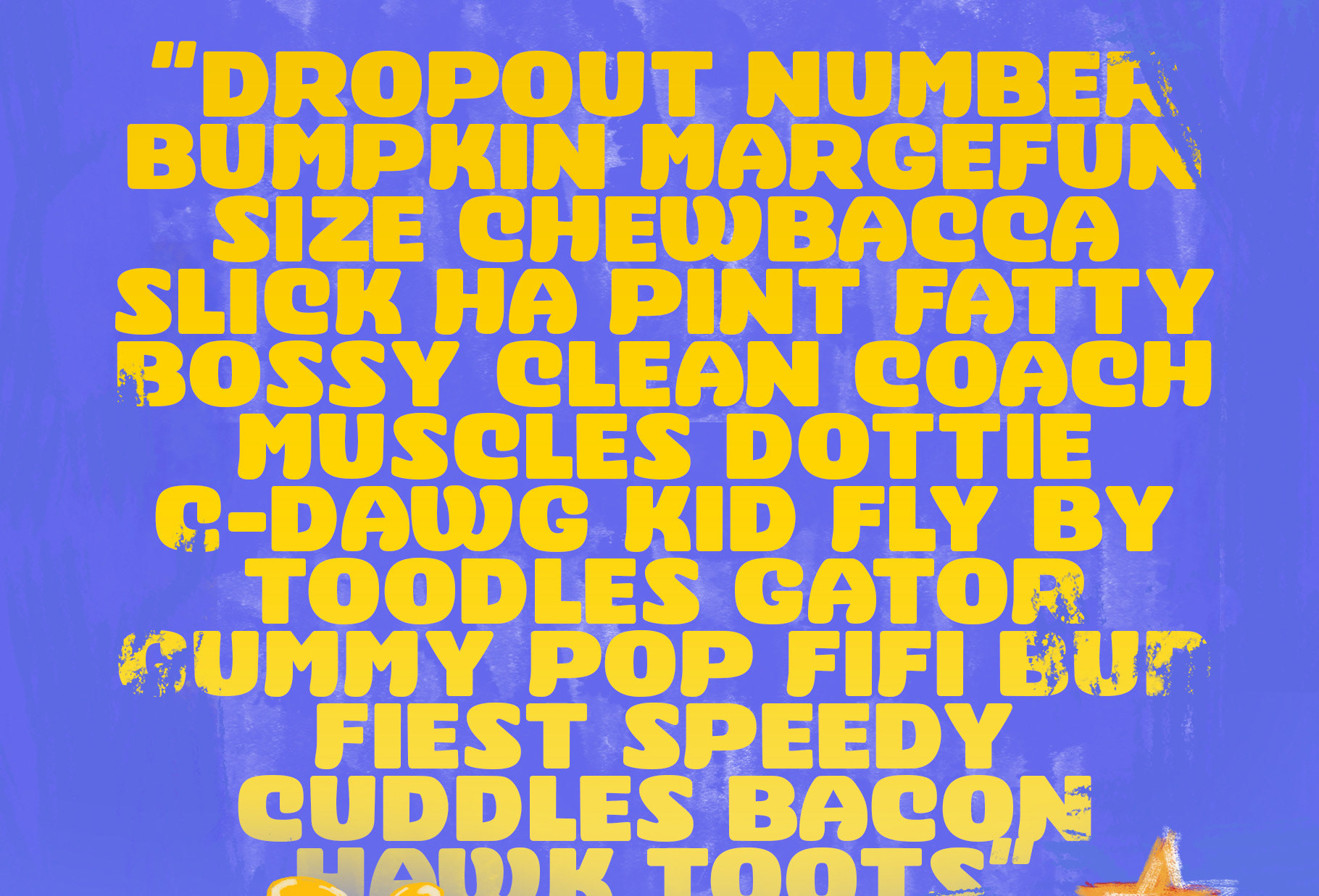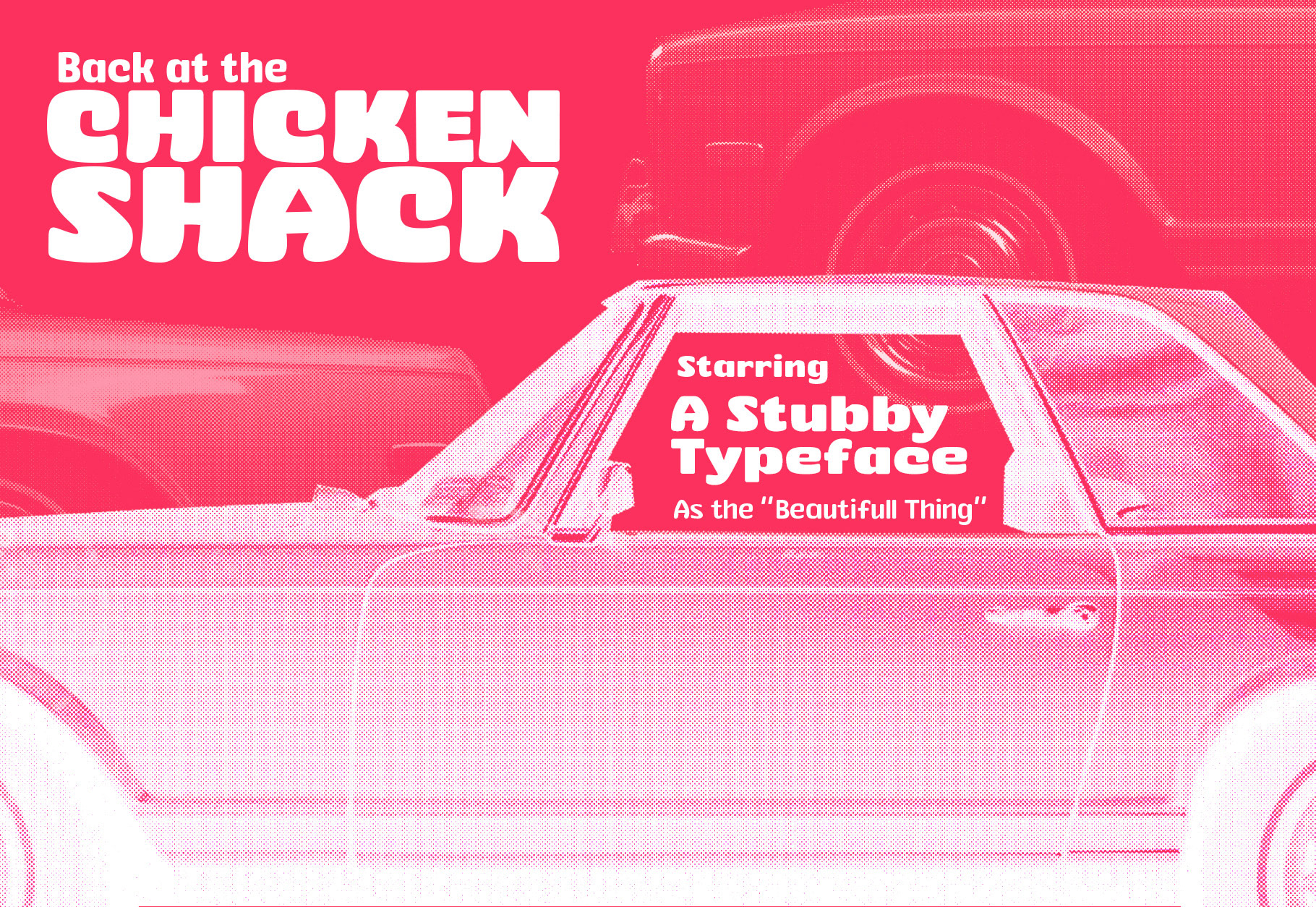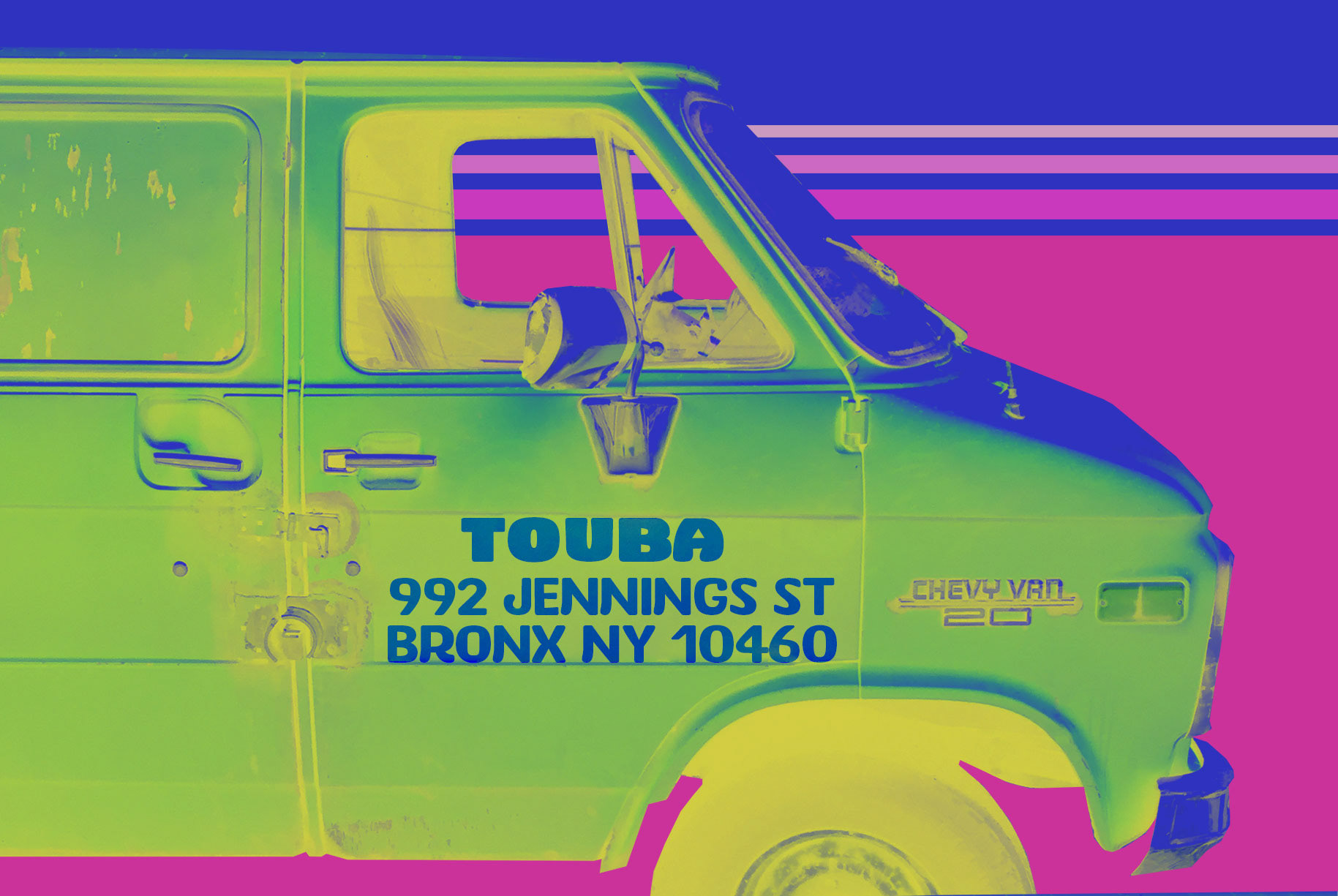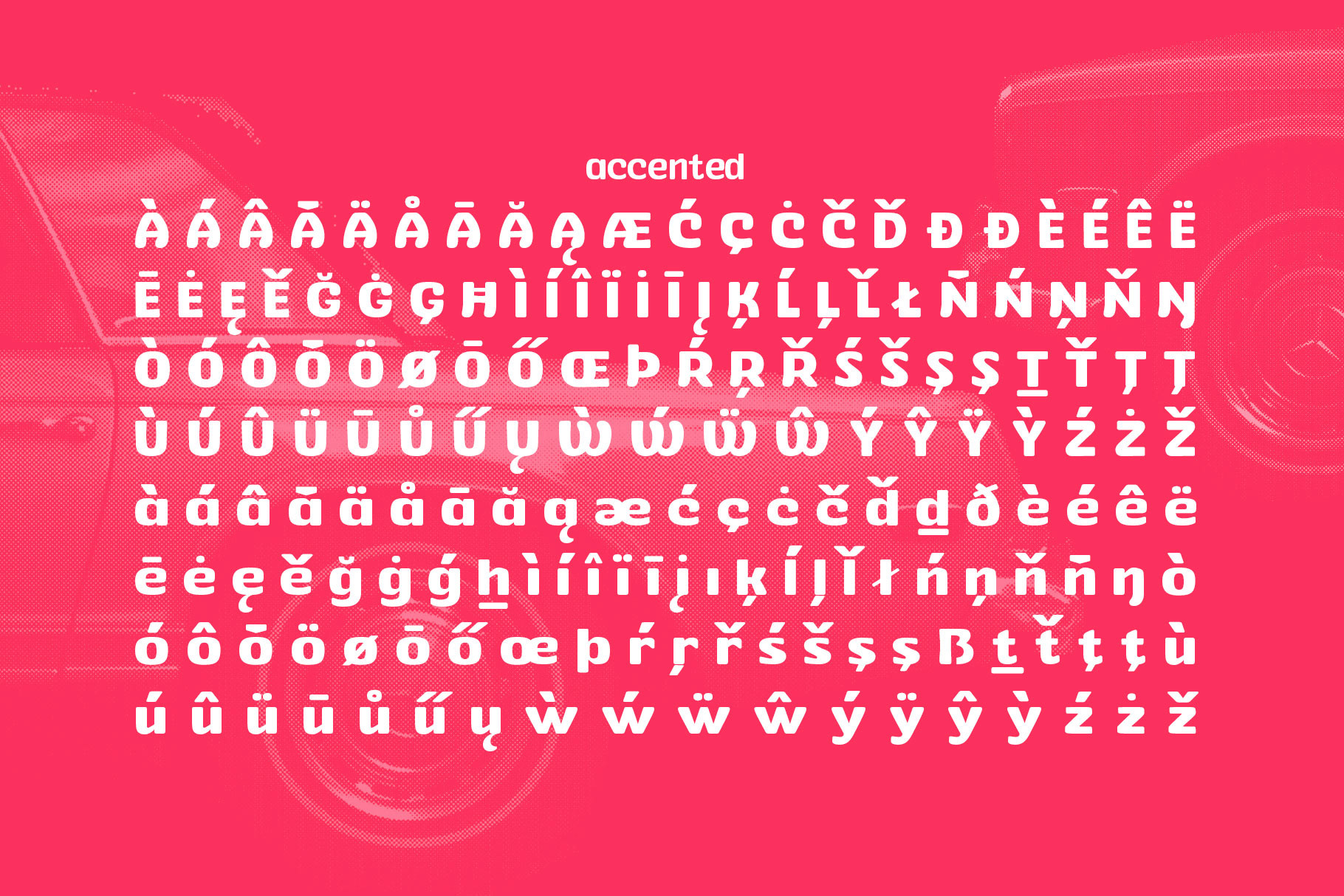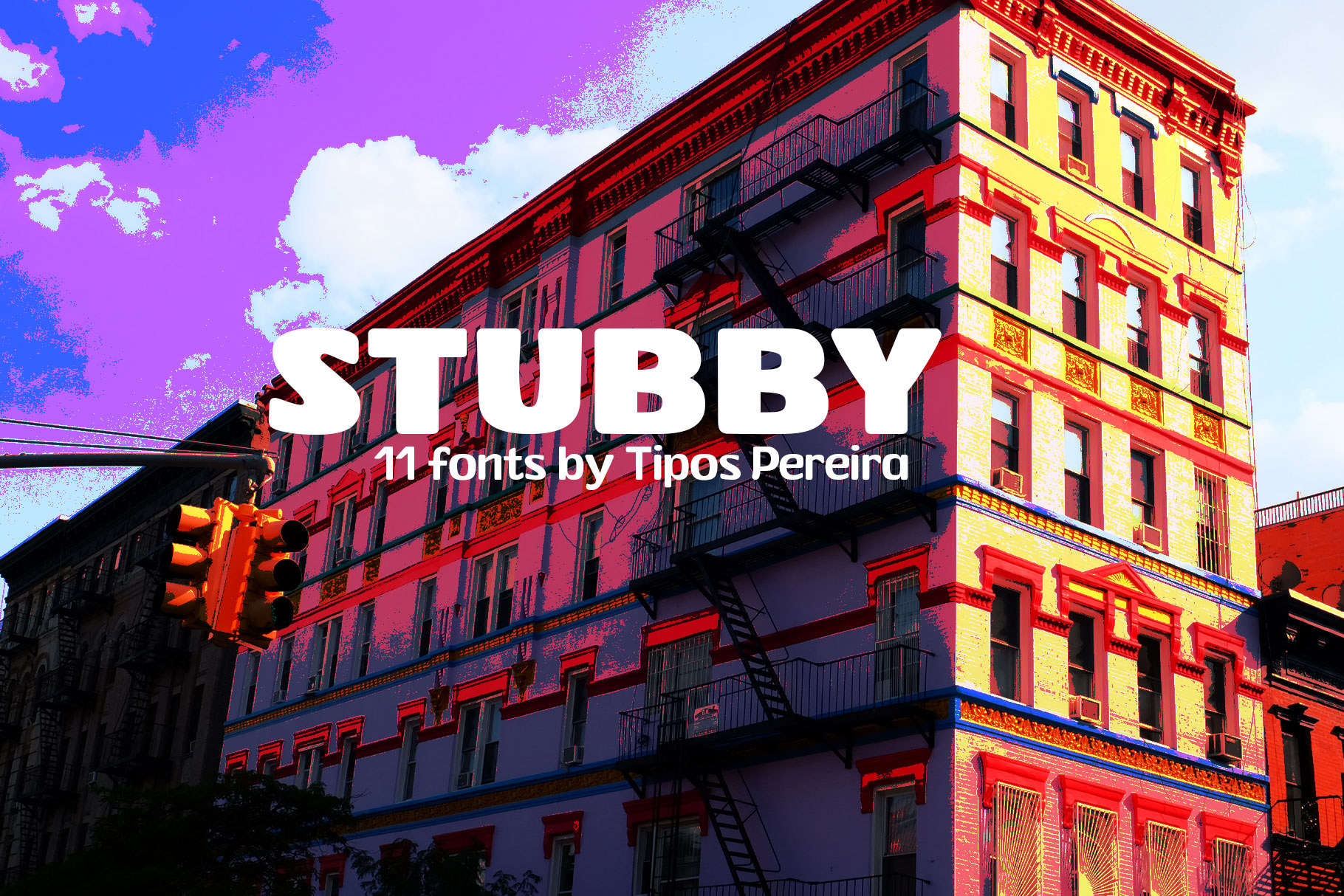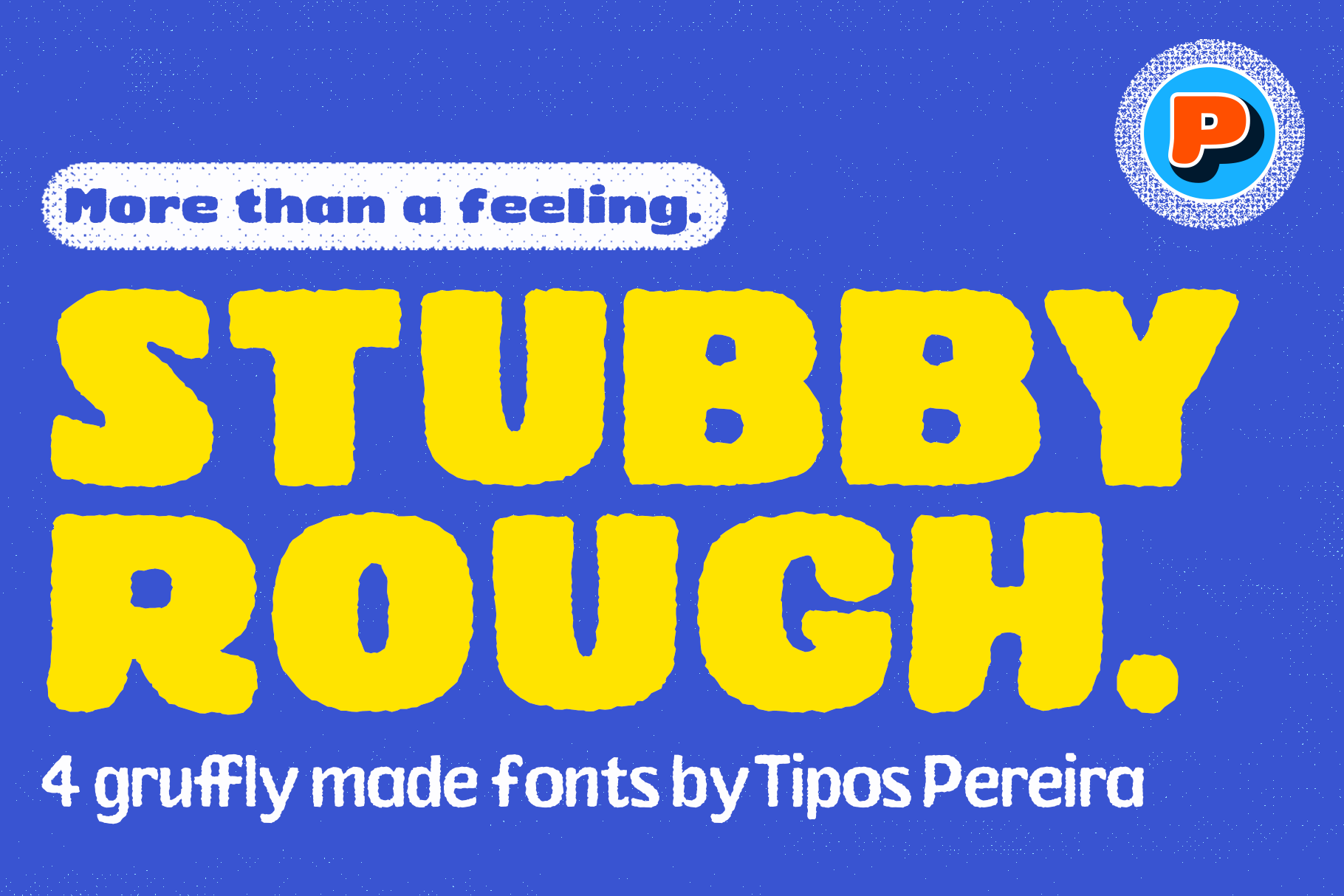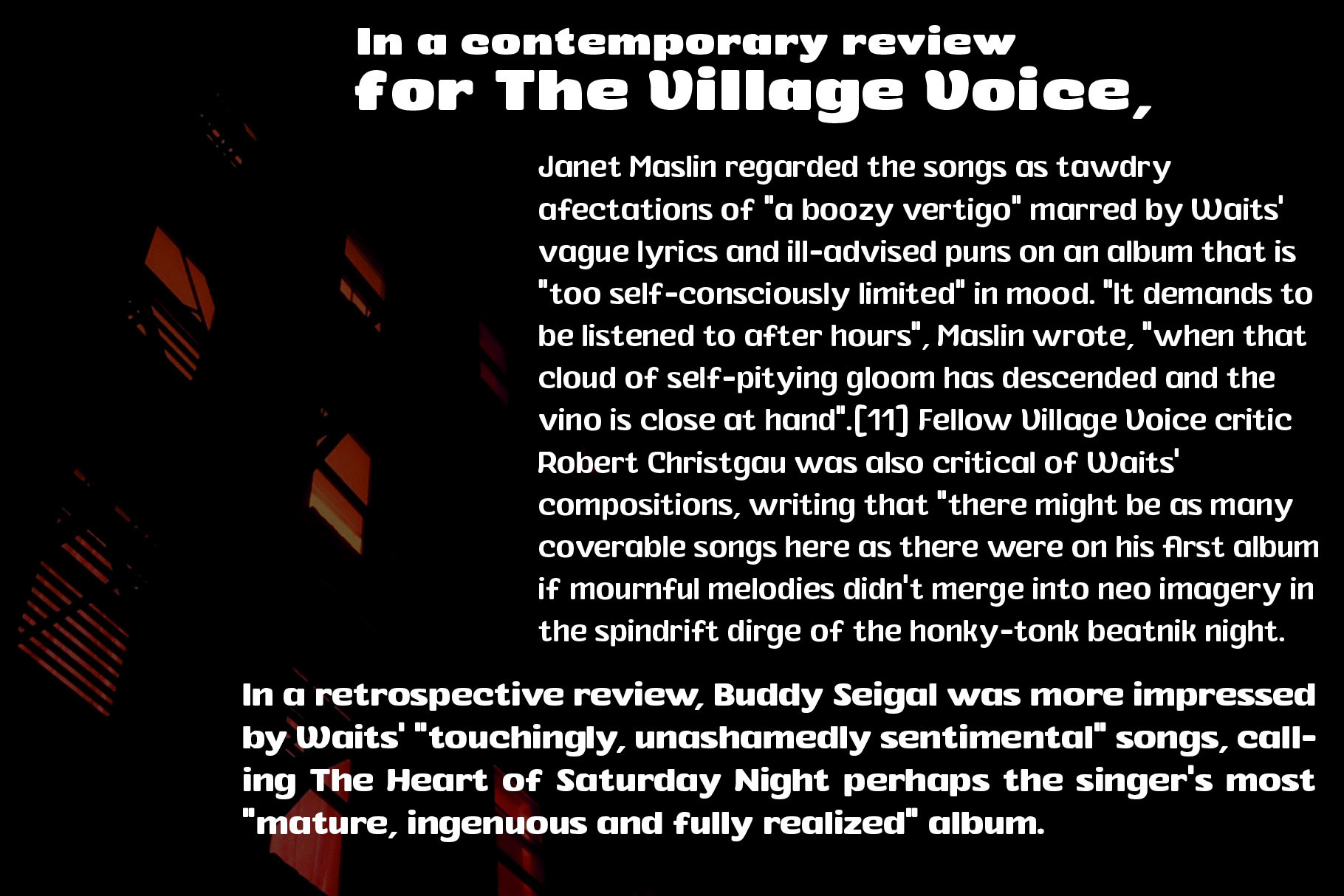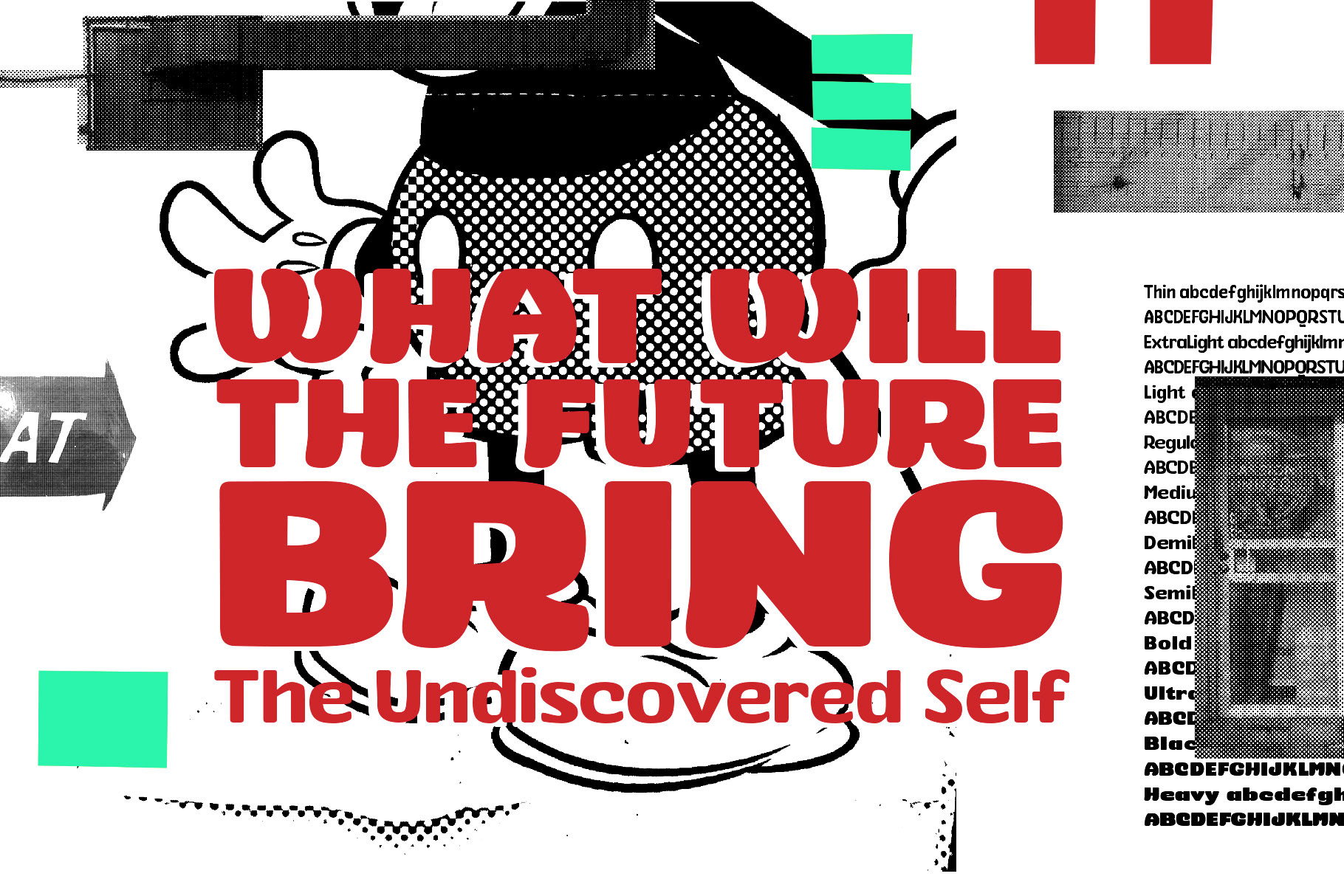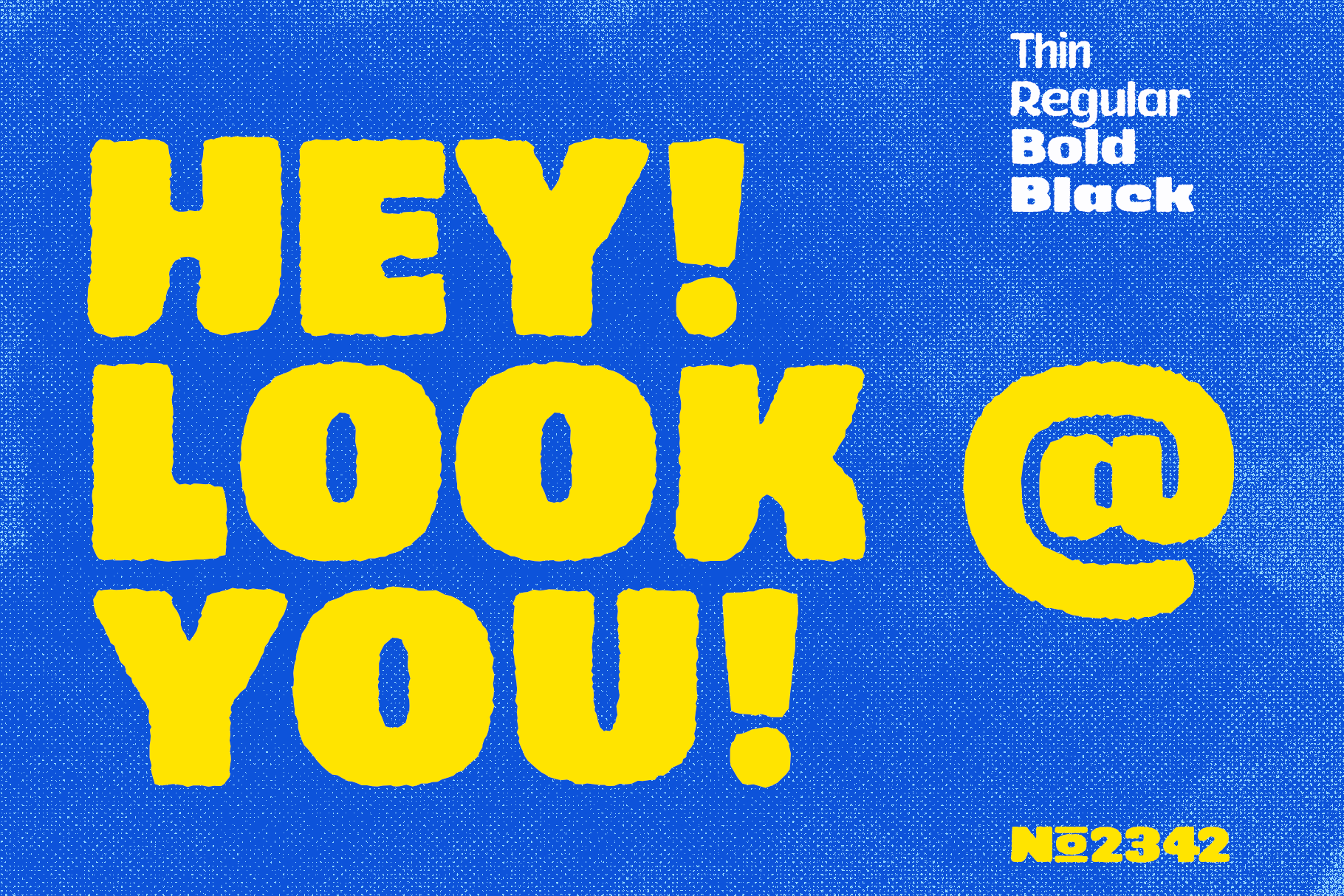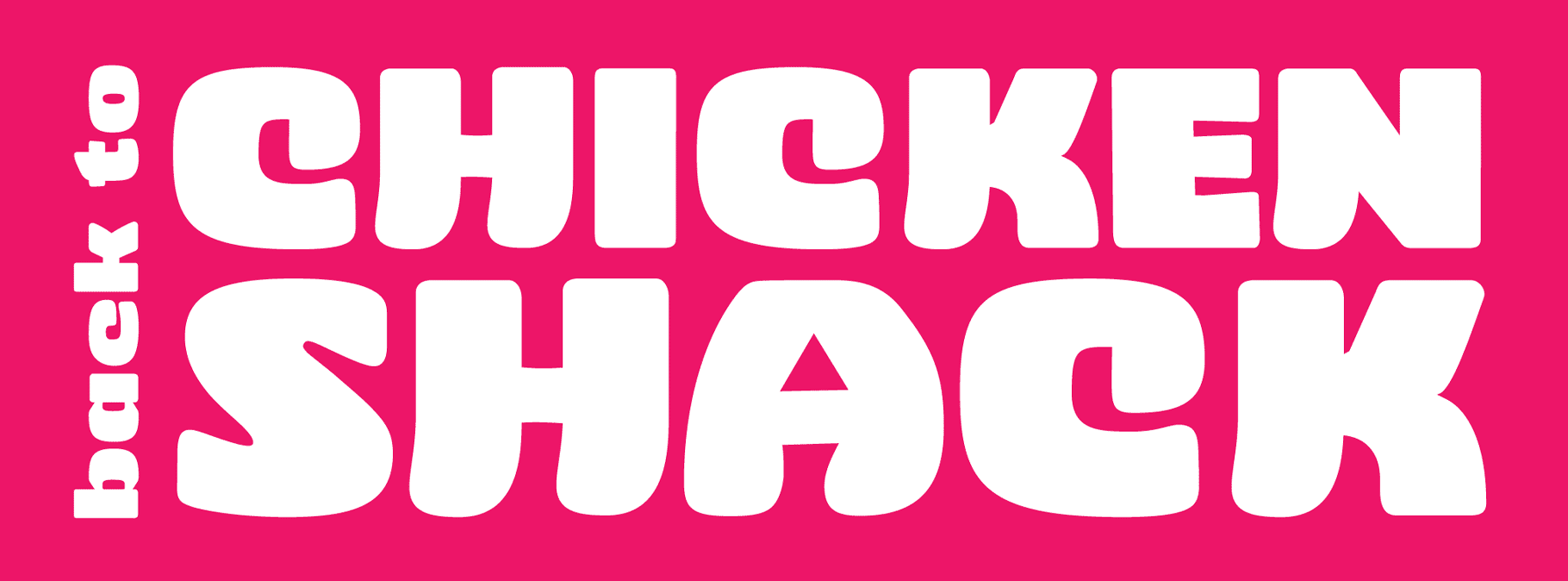
Stubby Typeface
English. Stubby is a display typeface inspired by the vernacular landscape. It was made for titles, headlines and also packages, posters and everything that provides space for a rude, fat and widish type. Nonetheless it can 😬(not)😬 be a type for text if you are looking for an informal shape, with eleven styles mixing  from a narrowed thin to a sloppy ultrabold, tight spacing looking to fit in squeeze places, trying to simulate some real life spirit of the Brazilian bars, always serving cold beer in stubby brown bottles.
Português. Stubby is a display typeface inspired by the vernacular landscape. It was made for titles, headlines and also packages, posters and everything that provide space for a rude, fat and widish type. Nonetheless it can be a type for text if you are looking for an informal shape, with eleven styles mixing  from a narrowed thin to a sloppy ultrabold, tight spacing looking to fit in squeeze places, trying to simulate some real life spirit of the botecos from Brazil, always serving very cold beer in stubby brown bottles.
Stubby is a hand drawn typeface inspired by true events.
Stubby Rough is a distressed version of Stubby for people who is looking for a vintage texture or a hand drawing feeling.
Stubby Rough is a hand drawn typeface inspired by true events.